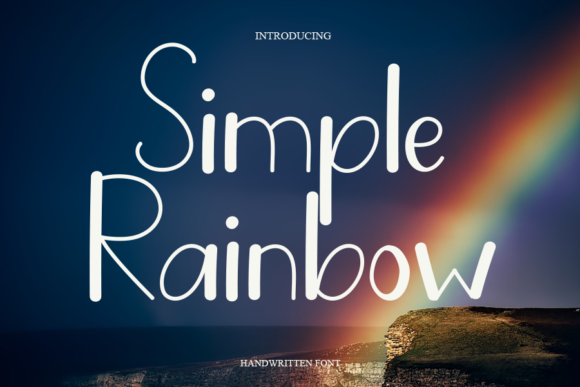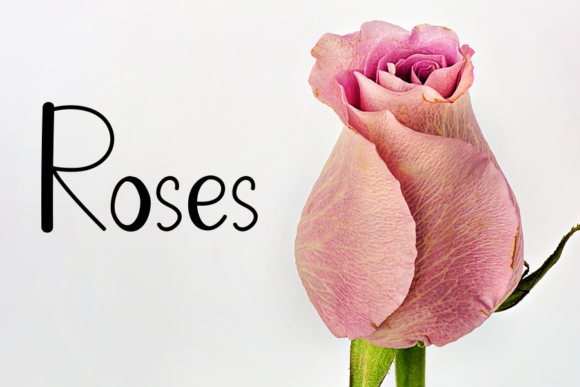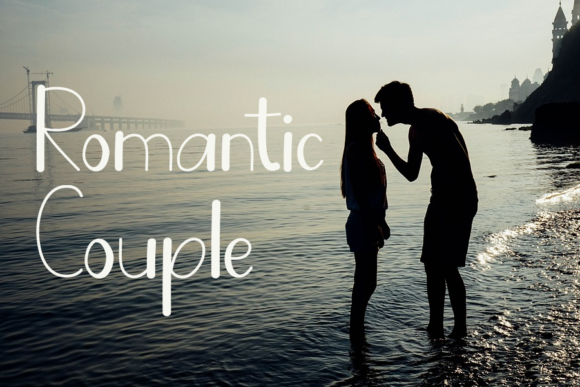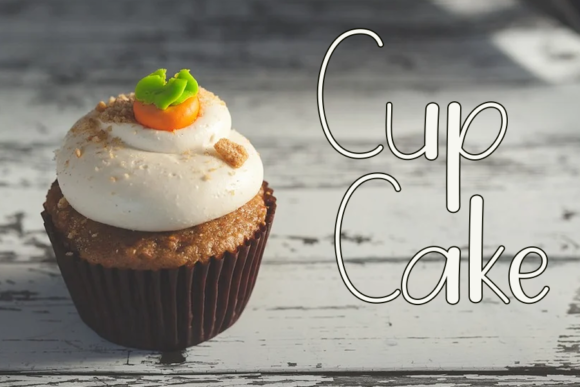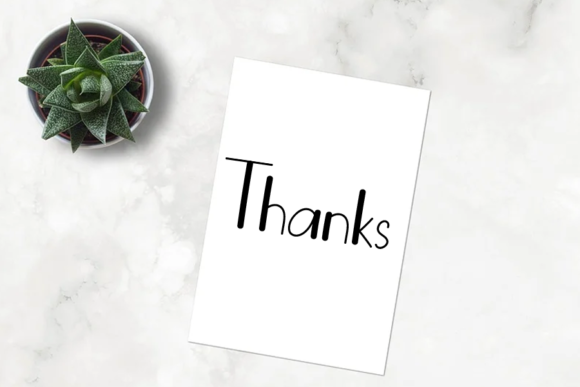
About Simple Rainbow Font
Simple Rainbow is a clean and minimal handwritten font. It can easily be matched to an incredibly large set of projects, so add it to your creative ideas and notice how it makes them stand out!